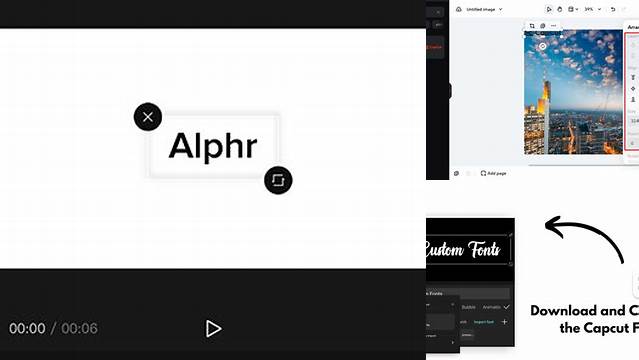
CapCut Watermark Fonts: Your Ultimate Guide
Are you looking to add a unique touch to your videos using CapCut? One of the best ways to do that is by using watermark fonts. In this comprehensive guide, we'll dive deep into the world of CapCut watermark fonts, exploring everything from why you should use them to how you can choose the perfect font for your brand. We'll also cover practical tips on adding and customizing these watermarks to elevate your video content. So, let's get started and make your videos stand out!
Why Use Watermark Fonts in CapCut?
Watermark fonts in CapCut serve several crucial purposes, making them an essential tool for content creators. Think of watermarks as your digital signature, your way of stamping your ownership on your creations. One of the primary reasons to use watermark fonts is to protect your content. In the vast digital landscape, videos can easily be copied and shared without your permission. By adding a watermark, you're making it clear that the video belongs to you. This visual deterrent can discourage unauthorized use and make it harder for others to claim your work as their own. It's like putting a digital fence around your creative property.
Beyond protection, watermarks are fantastic for branding. A consistent watermark featuring your logo, brand name, or website URL can significantly boost your brand recognition. Every time someone watches your video, they see your watermark, reinforcing your brand identity. This is particularly important on platforms like YouTube, Instagram, and TikTok, where viewers are constantly scrolling through content. A well-placed and stylish watermark can help your brand stick in their minds. Consider it your subtle but persistent branding reminder.
Moreover, watermarks are great for marketing. They can act as a free and effective way to promote your brand across all your videos. By including your website or social media handles in your watermark, you're providing viewers with a direct link to your other content and platforms. This can drive traffic, increase engagement, and help you grow your audience. It’s a simple yet powerful way to turn every video view into a potential follower or customer. Think of it as a mini-advertisement that lives within your content.
Using watermark fonts also adds a professional touch to your videos. A thoughtfully designed watermark can make your content look polished and credible. It shows that you pay attention to detail and take pride in your work. This can be especially important for businesses and creators who want to project a professional image. A clean, elegant watermark can elevate your video's overall appeal and make it stand out from the crowd. It’s the equivalent of adding a signature to a masterpiece.
In addition to the practical benefits, watermark fonts offer creative opportunities. With CapCut, you have a wide range of fonts and customization options to choose from. This means you can create a watermark that not only protects your content but also complements your video's style and aesthetic. Experiment with different fonts, colors, and sizes to find the perfect look for your brand. Your watermark can be an extension of your creative vision, adding another layer of personality to your videos.
So, whether you’re a seasoned content creator or just starting, watermark fonts in CapCut are an invaluable tool. They offer protection, branding, marketing, and a touch of professionalism, all while allowing you to express your creativity. By understanding the importance of watermark fonts, you can take your videos to the next level and build a strong brand presence in the digital world.
Choosing the Right Watermark Font in CapCut
Choosing the right watermark font in CapCut is crucial because your font speaks volumes about your brand. The font you select can influence how viewers perceive your content, so it's essential to pick one that aligns with your brand's identity and message. When selecting a font for your watermark, consider your brand's personality. Is it modern and sleek, or classic and elegant? Your font should reflect these qualities. For example, a tech company might opt for a clean, sans-serif font, while a luxury brand might prefer a sophisticated serif font. Think of your watermark font as a visual extension of your brand's voice.
Readability is another key factor. A watermark is only effective if viewers can easily read it. Avoid overly decorative or intricate fonts that can become illegible, especially when scaled down for smaller screens. Opt for fonts that are clear and easy to read at a glance. A legible watermark ensures that your brand name or logo is instantly recognizable, reinforcing brand awareness. Imagine if your audience couldn't decipher your watermark – the branding opportunity would be lost.
Consistency is also paramount. Use the same watermark font across all your videos to maintain a consistent brand image. This helps viewers easily recognize your content and associate it with your brand. Think of major brands and their signature fonts – Coca-Cola's Spencerian script or Disney's whimsical font. By consistently using the same font, you're building a visual identity that viewers can quickly identify. Inconsistency can lead to confusion and dilute your brand's impact.
Adding and customizing watermark fonts in CapCut is a straightforward process that can significantly enhance your video content. CapCut's user-friendly interface makes it easy for both beginners and experienced editors to add professional-looking watermarks. To start, open CapCut and import the video you want to add a watermark to. Once your video is loaded, navigate to the text tool. This is where you'll add the text that will serve as your watermark.